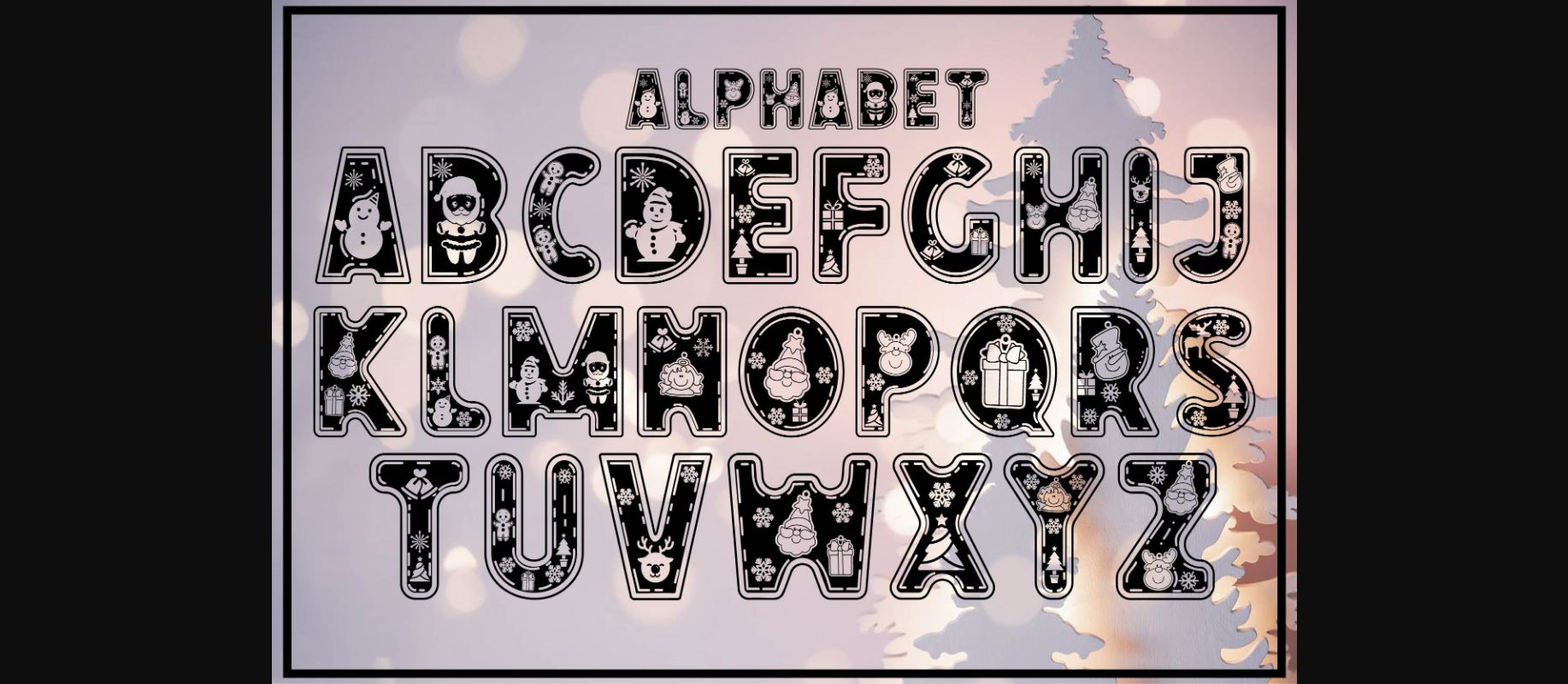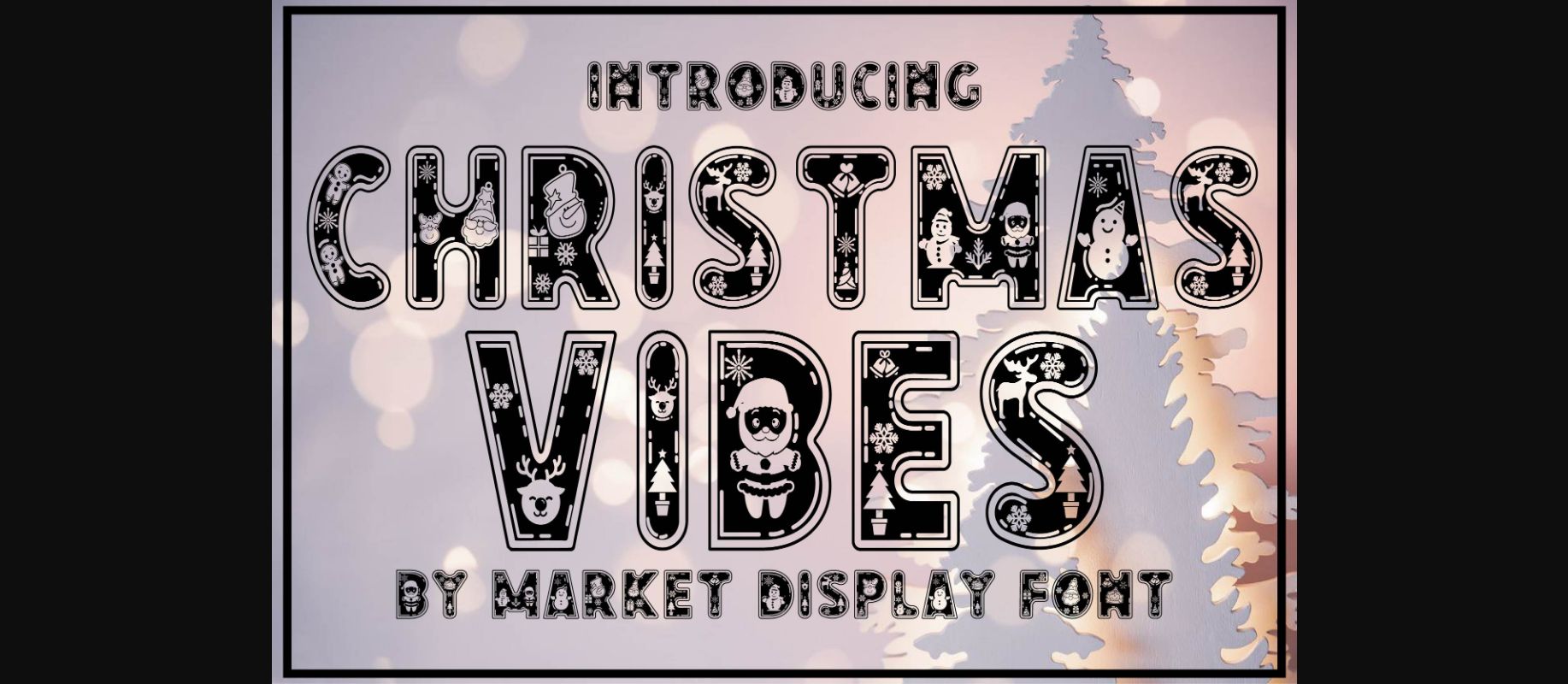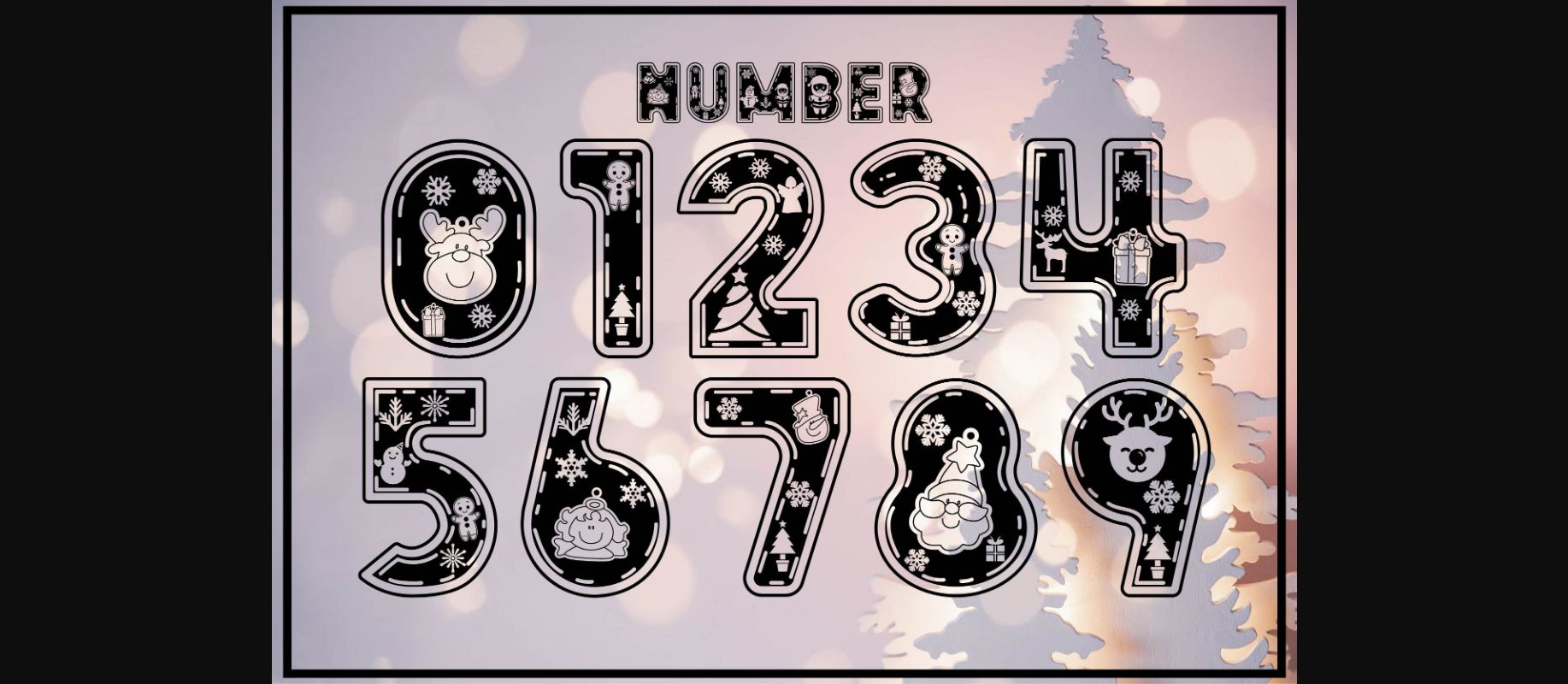
HomeDecorative FontsChristmas Vibes Font Decorative Fonts Christmas Vibes Font FacebookXPinterestWhatsApp 1 of 5 ... Christmas Vibes Font Poster 2... Christmas Vibes Font Poster 3... Christmas Vibes Font Poster 4... Christmas Vibes Font Poster 5... About Christmas Vibes Font Christmas Vibes is a fun decorative font with a Christmas holiday theme. Add this font to your favorite creative ideas and notice how it makes them come alive! DOWNLOAD NOW People also explored Adreena Script Font Feeling Blessed Font Mother Day Font Emely Brown Font Biliner Meclan Font Oldcurley Font Amaro Fleurie Chestnut Font Arlington – Modern Script Font 402 0 TagsChristmas Vibes Font Previous articleBoneka FontNext articleDarkstein Font LEAVE A REPLY Cancel reply Comment: Please enter your comment! Name:* Please enter your name here Email:* You have entered an incorrect email address! Please enter your email address here Website: Save my name, email, and website in this browser for the next time I comment. Personal Use Free Banana Valentine Personal Use Free Read more about this font BD Alm Personal Use Free Read more about this font Baby Mollusca Personal Use Free Read more about this font Ontel Personal Use Free Read more about this font BLOG How to Cut Any Font on Cricut: Convert a Font to SVG (Free) Turn any font into a clean SVG so it cuts crisp on Cricut - a quick 3-step workflow using a free font-to-SVG tool. Elegant Wedding Invitation Fonts – Handwritten & Script Fonts Top 10 Handwritten Fonts That Elevate Your Designs To increase your work productivity, choose the most readable fonts.